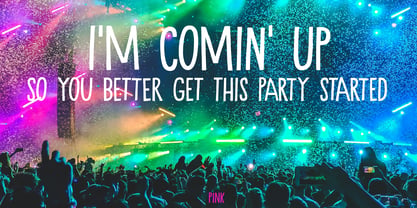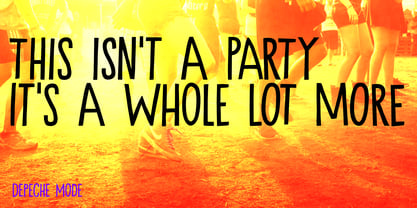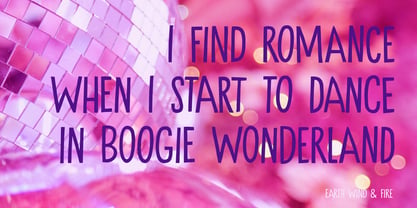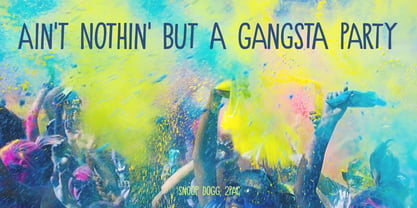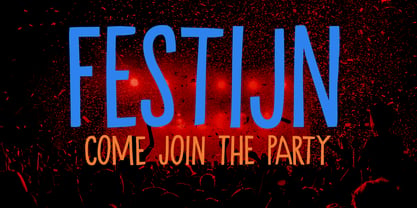
Festijn Pro
La familia tipográfica Festijn Pro fue diseñada por David Kerkhoff y publicada por Hanoded. Festijn Pro contiene 2 estilos. Más información sobre esta familia
Festijn - in Dutch - means ‘festival’, ‘party’, or ‘happening’, depending on the word you use before. So a ‘dansfestijn’ is a dance party and an ‘eetfestijn’ is a food festival.
Festijn is a handmade, all caps, tall & thin font. You can use it for a wide variety of things, like party posters, food truck menus or just like it is - because you love it so much!
Acerca de Hanoded
Hanoded is run by Dutchman David Kerkhoff. His fonts are a mishmash of styles, as he just creates whatever pops into his head. You will find a lot of brush fonts in his collection, as his favourite tools are brushes and Chinese ink, with cartoon style fonts and script fonts complementing his repertoire. Aside from making fonts, David occasionally guides tours in far-flung places, renovates his '30's house and tries reasoning with his wife and (teenage) kids. Not an easy task!